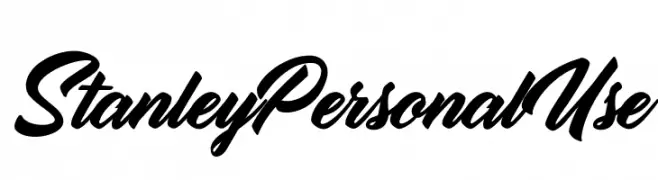
A bold, high-contrast serif font with dramatic and elegant features.
A bold, playful font with interconnected, bubble-like characters.
A lively and expressive script font with bold, flowing cursive letters.
A bold, decorative serif font with shadow effects for a vintage yet modern look.
A playful, handwritten font with a casual and whimsical style.
A fluid, elegant script font with a handwritten style.
A bold, cursive font with smooth, flowing lines and a strong presence.
A bold, expressive script font with fluid, interconnected strokes and a handwritten appearance.
A bold, dynamic script font with fluid, cursive connections and dramatic flourishes.
A bold, playful font with a hand-drawn, whimsical style.